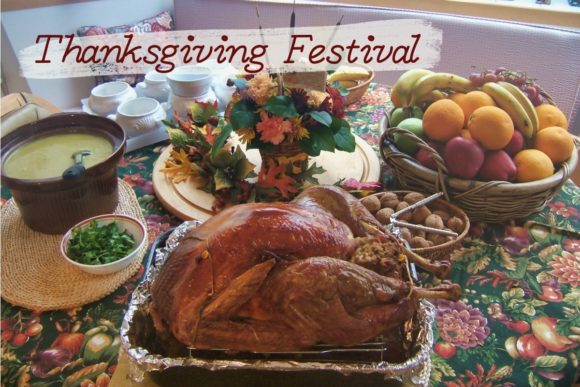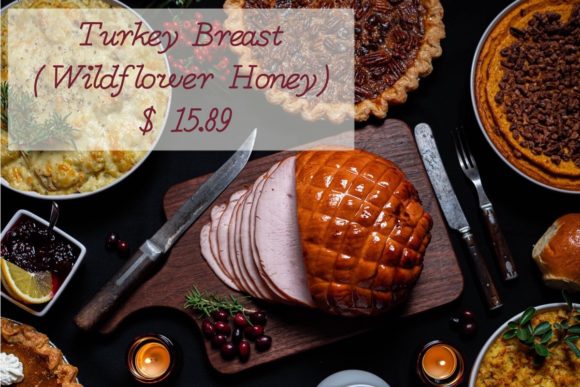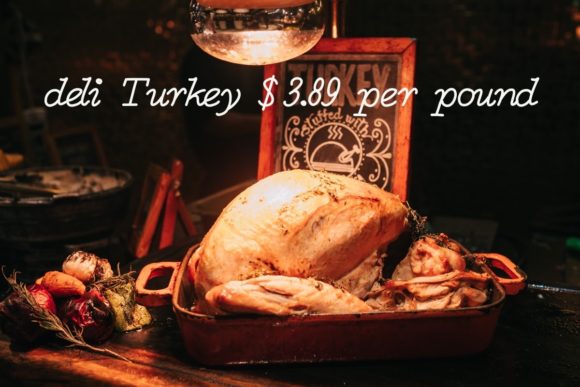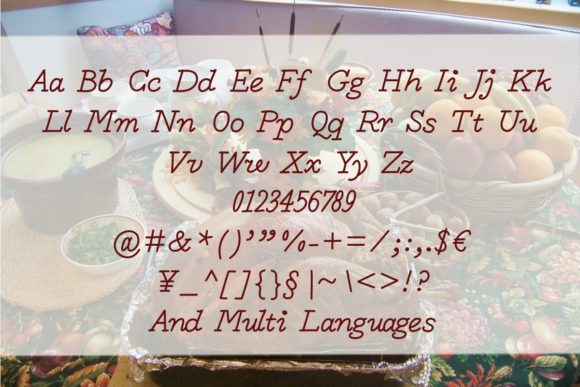
Deli Turkey Font: Elevate Your Designs with a Beautiful Handwritten Style
Are you tired of using the same old fonts in your designs? Look no further than Deli Turkey, a stunning handwritten font that’s perfect for adding a personal touch to your creations. With its unique and adaptable style, Deli Turkey is a wonderful asset to any font library, and can enhance any project, regardless of the topic.
What Makes Deli Turkey Font So Special?
Deli Turkey is a beautifully crafted handwritten font that’s designed to add a touch of elegance and sophistication to your designs. Its unique style is perfect for a wide range of projects, from wedding invitations and greeting cards to blog posts and social media graphics.
One of the things that sets Deli Turkey apart from other fonts is its adaptability. Whether you’re creating a formal or informal design, this font can adapt to suit your needs. Its flowing lines and delicate curves make it perfect for creating beautiful, eye-catching headlines and titles, while its clear and legible style ensures that your body text is easy to read.
Key Features of Deli Turkey Font
- Beautiful Handwritten Style: Deli Turkey is a stunning handwritten font that’s perfect for adding a personal touch to your designs.
- Adaptable: This font can be used for a wide range of projects, from formal to informal designs.
- Clear and Legible: Deli Turkey’s clear and legible style ensures that your body text is easy to read, making it perfect for use in blogs, articles, and more.
- Unique and Elegant: With its flowing lines and delicate curves, Deli Turkey adds a touch of elegance and sophistication to any design.
How to Use Deli Turkey Font in Your Designs
- Pair it with Other Fonts: Deli Turkey looks great when paired with other fonts. Try pairing it with a clean sans-serif font for a bold and modern look.
- Use it for Headlines and Titles: Deli Turkey’s flowing lines and delicate curves make it perfect for creating beautiful, eye-catching headlines and titles.
- Add it to Your Font Library: With its adaptability and unique style, Deli Turkey is a wonderful asset to any font library.
Benefits of Using Deli Turkey Font
- Adds a Personal Touch: Deli Turkey’s handwritten style adds a personal touch to your designs, making them stand out from the crowd.
- Increases Readability: Deli Turkey’s clear and legible style ensures that your body text is easy to read, making it perfect for use in blogs, articles, and more.
- Enhances Visual Appeal: With its flowing lines and delicate curves, Deli Turkey adds a touch of elegance and sophistication to any design, making it perfect for creating visually appealing graphics.
In conclusion, Deli Turkey is a beautiful and adaptable handwritten font that’s perfect for adding a personal touch to your designs. With its unique and elegant style, clear and legible body text, and adaptability, Deli Turkey is a wonderful asset to any font library. Whether you’re a designer, crafter, or DIY enthusiast, Deli Turkey is a must-have font that’s sure to enhance any creation.